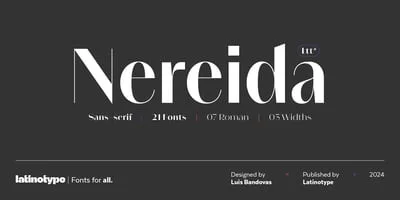
Nereida Font
Nereida Font is gracefully designed for oceanfront resort branding, marine conservation campaigns, coastal restaurant menus, spa and wellness communications, beach hotel materials, aquatic-themed publications, nautical wedding invitations, and serene lifestyle branding projects. This flowing typeface excels in environments requiring aquatic tranquility and coastal elegance, making it perfect for marine businesses, coastal tourism brands, wellness retreats, and any organization needing to communicate oceanic serenity and fluid beauty through distinctive typography.
What makes Nereida Font so exciting is its exquisite capture of oceanic movement and aquatic grace that creates an immediate sense of coastal tranquility and marine elegance through its fluid letterform design. The font features beautifully crafted characters with flowing curves and gentle waves that mirror the natural rhythm of ocean tides and coastal breezes. Its aquatic construction and serene character make it incredibly effective for brands wanting to communicate peace, natural beauty, and oceanic harmony while appealing to audiences seeking coastal escape and marine connection.
Nereida Font typically includes multiple weights and styles such as Light, Regular, Medium, and Bold, often accompanied by flowing Italic variations that enhance its aquatic movement. The font family frequently features additional oceanic elements including wave-inspired alternates, marine symbols, and coastal glyphs that enhance its nautical appeal. Each weight maintains the font's distinctive flowing character while offering different levels of visual depth, providing designers with comprehensive tools for creating tranquil brand identities and serene communication materials.
Coastal brand designers will find that Nereida Font delivers exceptional performance in both luxury resort applications and environmental communication materials designed for marine audiences. The font's carefully crafted character set includes ocean-friendly letterforms, nautical symbols, and coastal elements essential for marine tourism, oceanfront hospitality, and aquatic conservation materials. Its serene design makes it particularly effective for spa branding, coastal real estate, marine sanctuaries, and ocean-oriented marketing campaigns requiring authentic aquatic presence.
The thoughtful attention to oceanic proportions and fluid spacing ensures that Nereida Font maintains excellent readability while delivering maximum coastal impact. Its marine-inspired design language makes it particularly effective for oceanfront hospitality, marine conservation, coastal lifestyle brands, and wellness applications. The font's tranquil appearance creates strong oceanic connections while remaining highly functional for projects requiring clear communication to coastal enthusiasts and marine lovers.
For designers seeking a typeface that embodies oceanic grace with coastal serenity, Nereida Font represents an exceptional choice that will flow through any project with its distinctive fluidity and marine character.